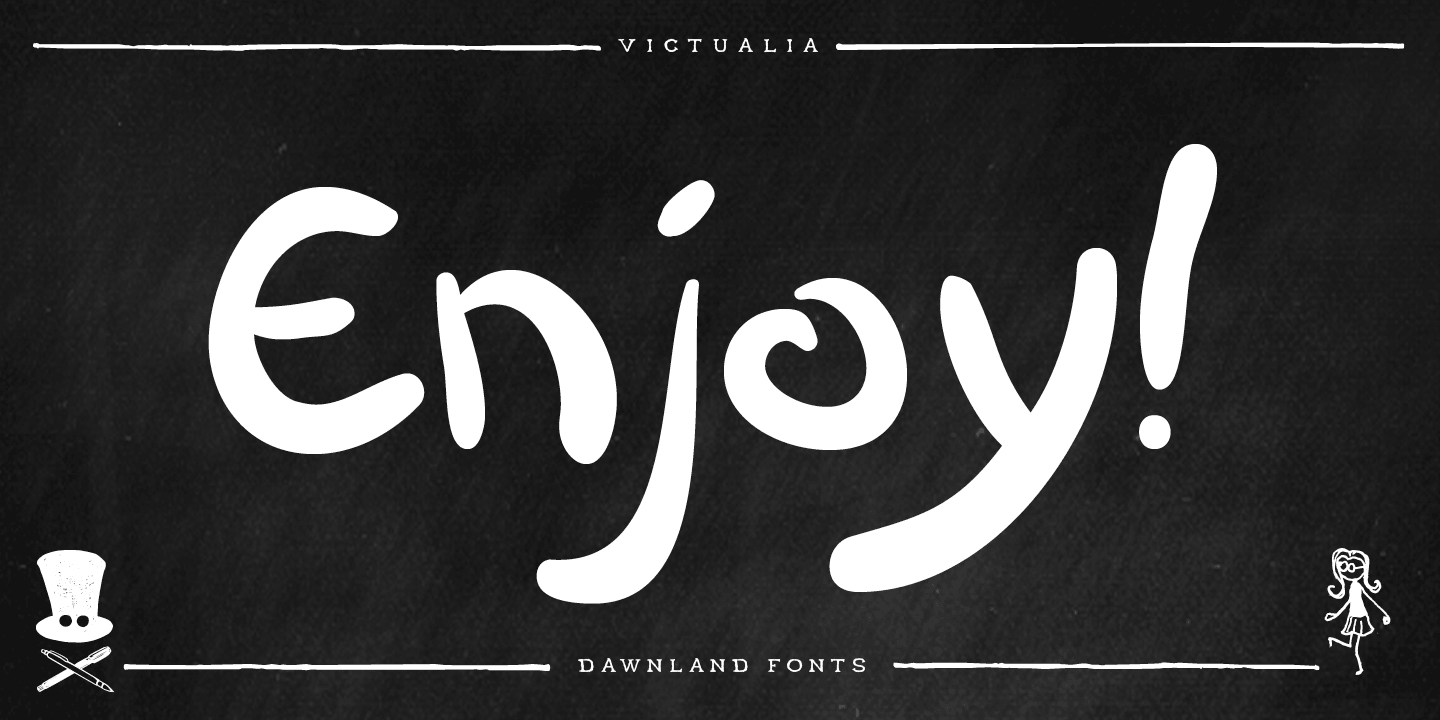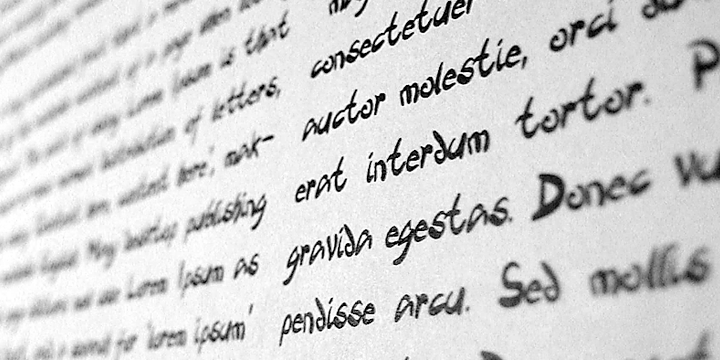
Victualia X is a hand drawn and kids font published by Dawnland.
Victualia - casual, hand drawn (Wacom, illustrator) brush font. “Ligatures” have been created for some double letters to enhance the illusion of handwritten text. (TT, tt, ff, oo, OO, mm, MM, ll & LL - open type version of the font and open type compatible layout application required).
Victualia was initially created in 2005 as part of a course that I attended to At Berghs, but has now been given a face lift as well as a full set of special characters.